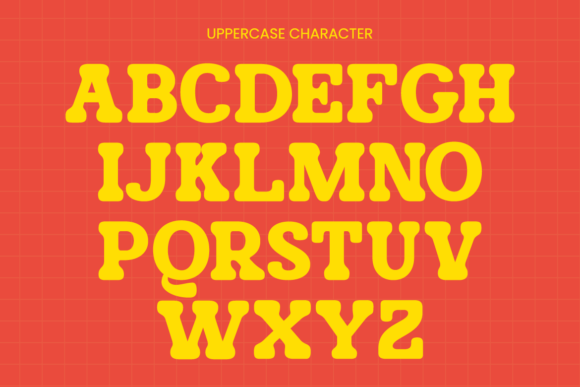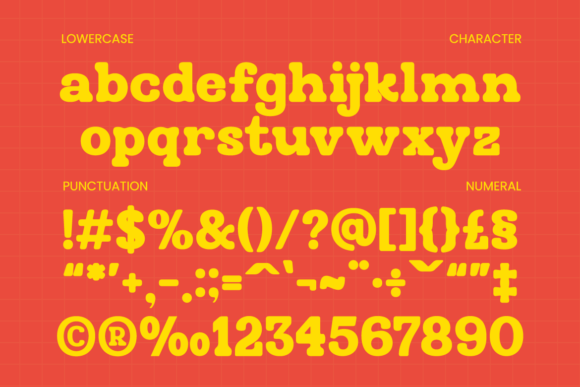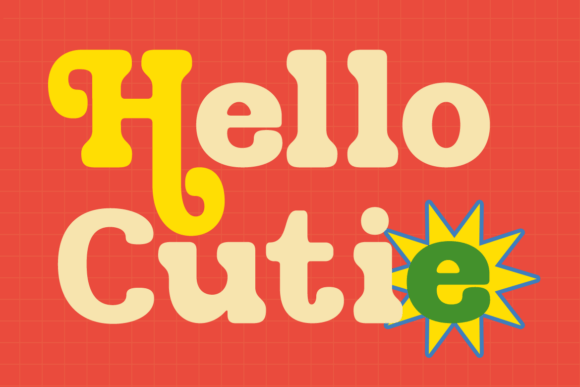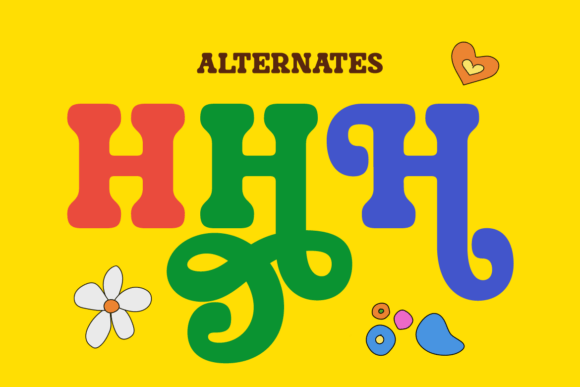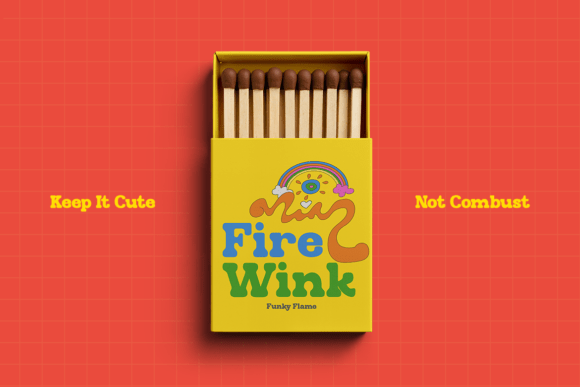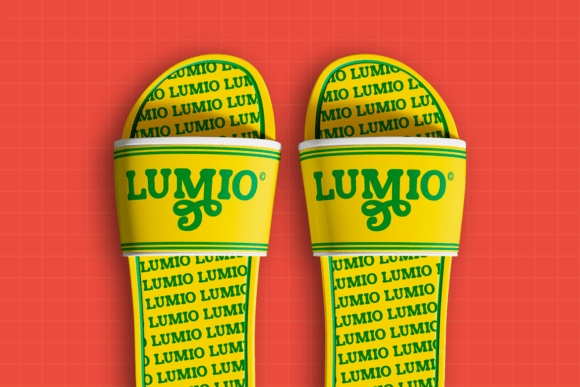
Introduction to Mirlona Font
Have you ever been working on a creative project, pouring over design options, and then suddenly, you stumble upon the perfect font – the one that makes your design pop, and instantly elevates the entire project’s vibe? That’s exactly what happens when you discover the Mirlona Font. This playful retro display font is designed to bring a dash of joyful personality and nostalgic charm into modern design projects, making it a valuable resource for designers looking to add a touch of whimsy to their work.
With its soft rounded shapes, chunky letterforms, and expressive curves, the Mirlona Font is the perfect choice for eye-catching headlines, colorful branding, and creative design layouts. Whether you’re working on a high-quality design project or simply looking for a fun design resource, the Mirlona Font is sure to deliver.
- Designed with a unique, modern aesthetic, making it perfect for contemporary creative projects.
Honest Review: Mirlona Font
As a designer, I’m always on the lookout for high-quality design resources to elevate my creative projects. Recently, I stumbled upon the Mirlona Font, and I’m excited to share my thoughts on it.
- ✨ Elegant and sophisticated design aesthetic
- ✨ Wide range of font styles and weights
Overall, I’m impressed with the Mirlona Font. While it may not be perfect, its high-quality design and wide range of font styles make it a valuable addition to any designer’s toolkit. With a bit of creativity, you can work around the limitations and achieve amazing results. I’d definitely recommend the Mirlona Font for any creative project that requires a touch of sophistication.
Use the Mirlona Font for creative projects that require a touch of sophistication, such as wedding invitations, business cards, or marketing materials. Experiment with different font sizes, colors, and combinations to achieve the desired effect.
Common Use Cases for Mirlona Font
The Mirlona Font is ideal for use in a variety of creative projects, including logos, branding materials, and packaging design. Its elegant and refined style makes it perfect for high-end or luxury brands.